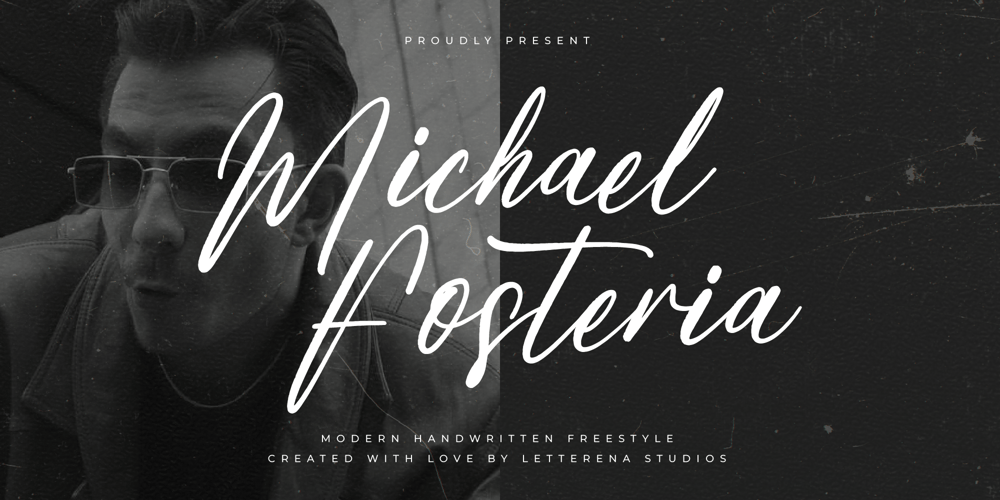
Michael Fosteria Font Family was designed by Heru Utama Putra and published by Letterena Studios. Michael Fosteria contains 2 styles and family package options. Meet Michael Fosteria: a dazzling handwritten script font that exudes urban sophistication and charm. Its flowing, confident strokes and stylish flair make it perfect for invitations, branding, and editorial designs. Michael Fosteria brings a personal touch to any project, combining elegance with a contemporary, artisanal twist.